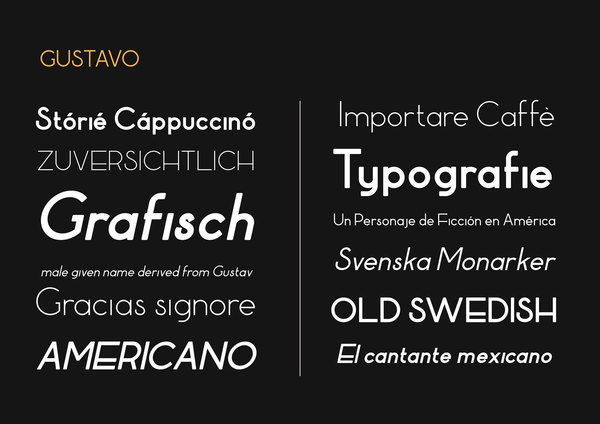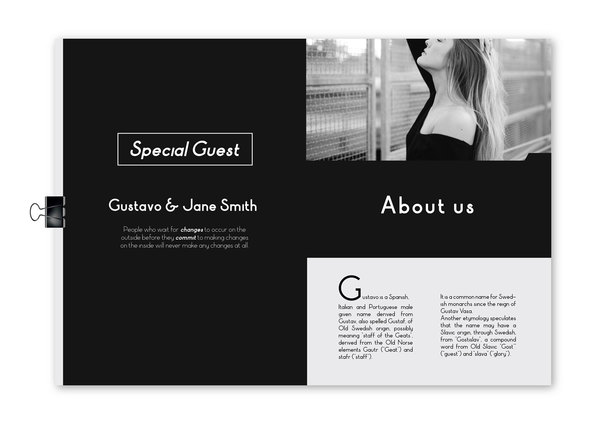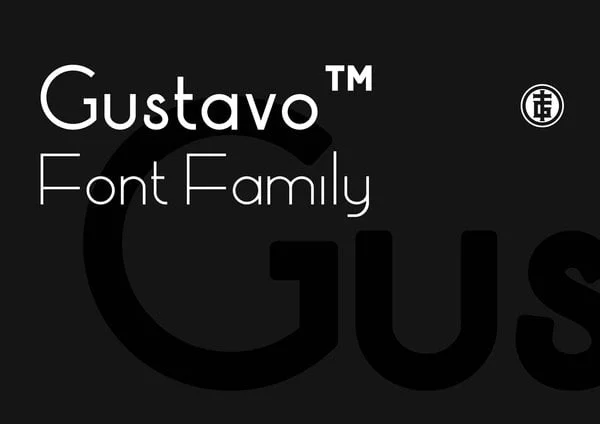
Gustavo Font
Gustavo Font Family packs a punch with the meaning ‘Staff of Gold’, inspired by the masculine name derived from the three Romance Languages – Spanish, Italian, and Portuguese. Gustavo is a sans serif font drawing on modernist influences from its slim strokes, with good legibility across a wide range of media, both on print and screen.
Features
5 weights with true italics, suited from small text to large display sizes. Details also include 1060 characters, small caps, manually edited kerning and Opentype features.
Gustavo Font is a Sans Serif Fonts font that brings a professional and versatile look to your projects. Gustavo Font Family packs a punch with the meaning ‘Staff of Gold’, inspired by the masculine name derived from the three Romance Languages – Spanish, Italian, and Portuguese.